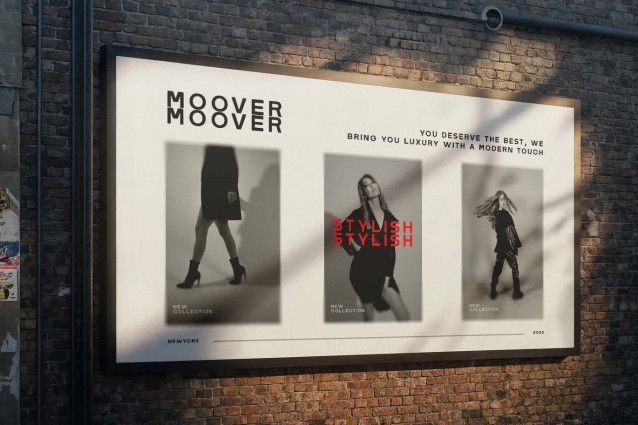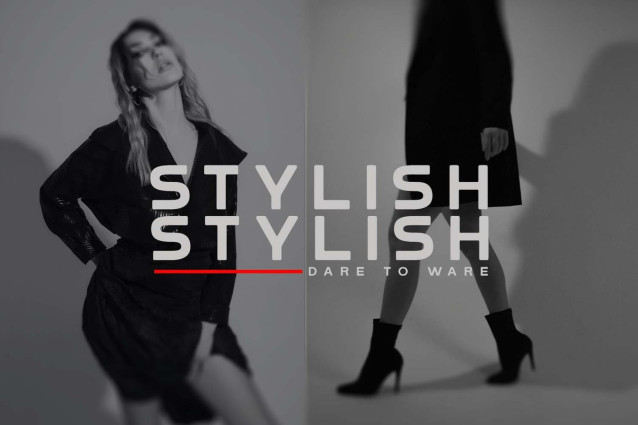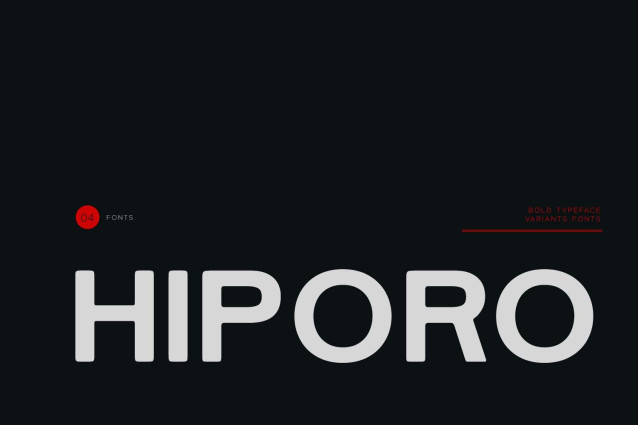
Hiporo Font
Hiporo Font is a Unique Typeface with Web Fonts. This font works great in large and small sizes. The Hiporo font would be perfect for branding, logos, headlines, and captions & simply as a stylish text overlay to any background image. Strong capitals and a smooth, open lowercase are effective in a variety of applications. The various weights allow you to experiment with a wide range of applications. It’s created to make an impression without sacrificing its beauty and readability.